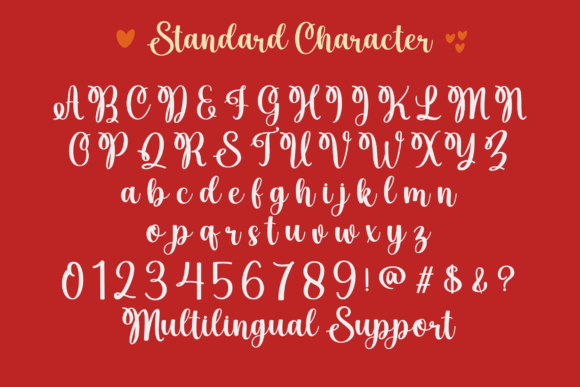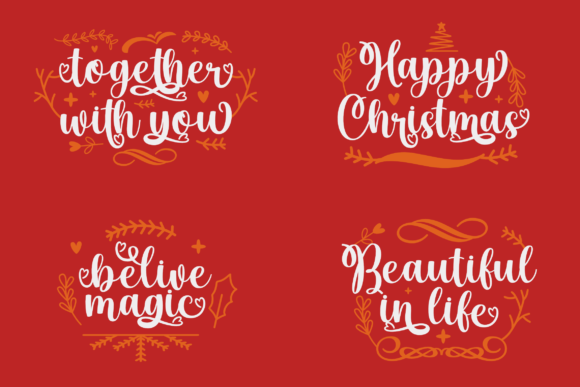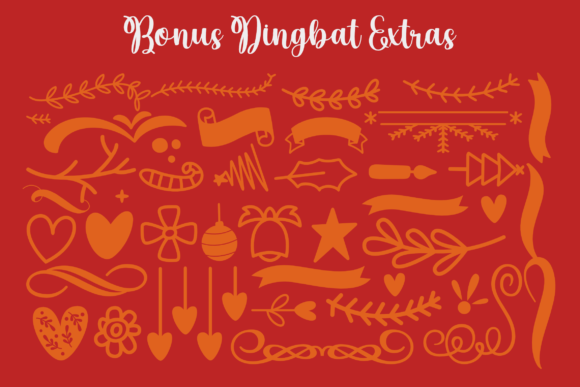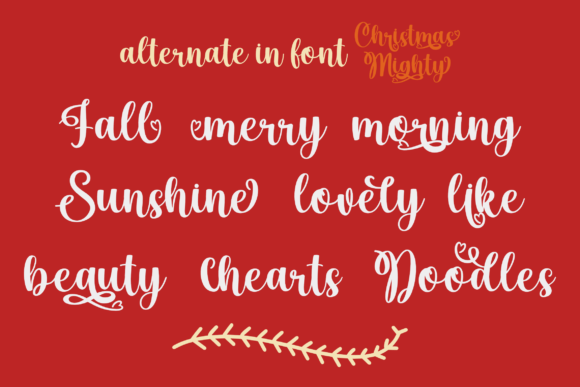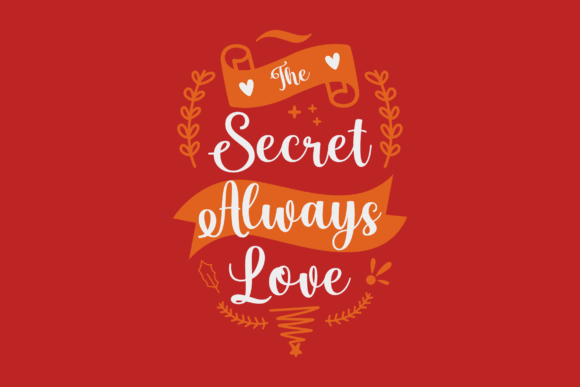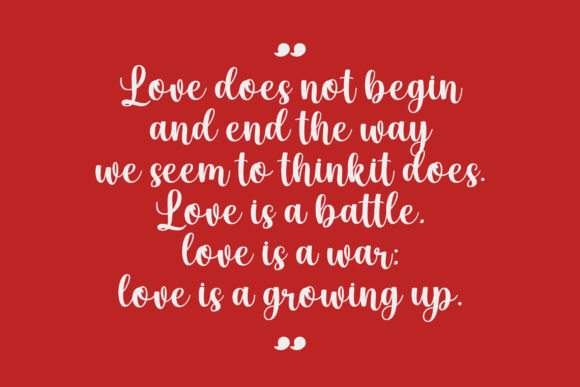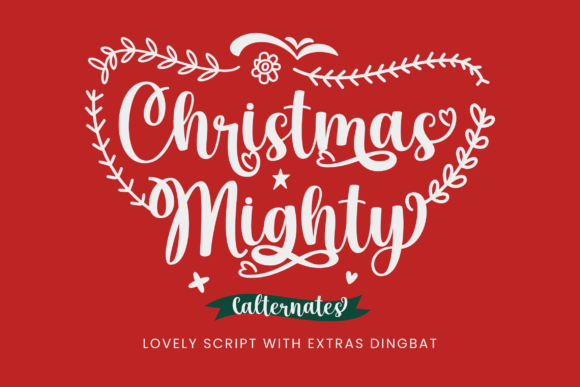
Introducing Christmas Mighty Font: The Perfect Handwritten Font for Your Holiday Designs
Are you looking for a beautiful and romantic handwritten font to add a touch of elegance to your holiday designs? Look no further than Christmas Mighty Font! This stunning font is perfect for creating festive and memorable designs, from thank you cards and wedding invitations to greeting cards, business cards, and logos.
What Makes Christmas Mighty Font So Special?
Christmas Mighty Font is a gorgeous handwritten font that exudes romance and sophistication. Its elegant strokes and flowing curves make it perfect for adding a personal touch to your designs. Whether you’re creating a wedding invitation, a holiday greeting card, or a logo for your business, this font is sure to impress.
One of the best things about Christmas Mighty Font is its versatility. It can be used for a wide range of design projects, from formal and professional to casual and playful. The font’s classic and timeless look makes it suitable for various design styles, ensuring that your creations will stand the test of time.
The Benefits of PUA Encoding
Christmas Mighty Font is PUA (Private Use Area) encoded, which means that you can easily access all the glyphs and swashes. PUA encoding allows you to access additional characters and symbols that are not found on a standard keyboard. This makes it easy to add flourishes and decorations to your designs, taking them to the next level.
With PUA encoding, you can access a wide range of alternative characters, ligatures, and swashes, giving you complete creative control over your designs. This feature is especially useful for designers and crafters who want to add a personal touch to their work.
Christmas Mighty Font is a dream come true for designers and crafters. Whether you’re a professional designer or a hobbyist, this font is perfect for adding a touch of elegance and sophistication to your work.
Designers can use Christmas Mighty Font to create stunning wedding invitations, greeting cards, and logos that will leave a lasting impression on their clients. Crafters can use the font to create beautiful handmade cards, gift tags, and other paper crafts that are sure to delight.
Tips for Using Christmas Mighty Font
Here are some tips for getting the most out of Christmas Mighty Font:
- Use the font for headlines and titles to add a touch of elegance and sophistication.
- Use the font’s swashes and glyphs to add flourishes and decorations to your designs.
- Pair the font with other fonts to create a unique and eye-catching design.
Christmas Mighty Font is a beautiful and romantic handwritten font that’s perfect for adding a touch of elegance and sophistication to your holiday designs. With its PUA encoding and versatile design, this font is sure to become a favorite among designers and crafters.